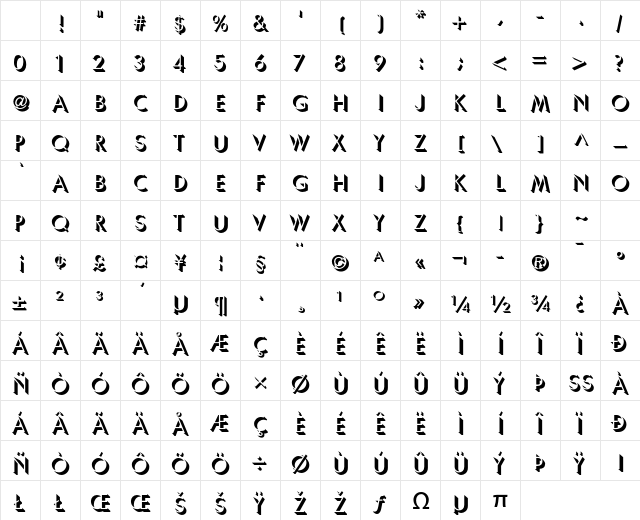
Umbra Std Medium
Designer: R. Hunter Middleton
Complete Umbra Std Medium glyph index. Displaying only characters natively supported by Umbra Std Medium font.
Design Context for Umbra Std
Umbra Std is a composed and adaptable typeface that performs quietly and consistently across a wide range of design contexts.